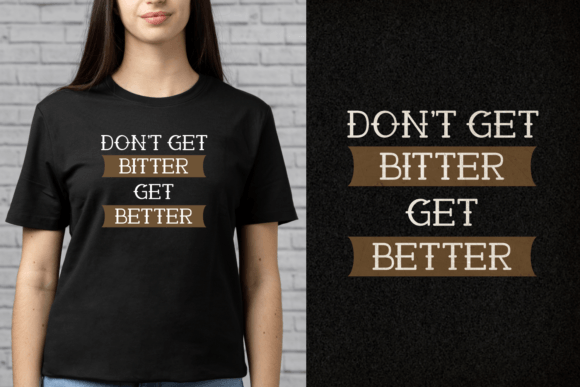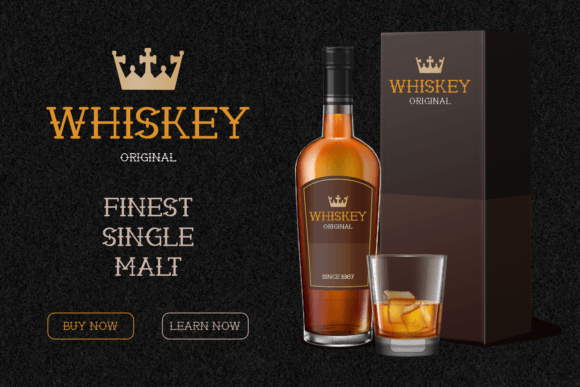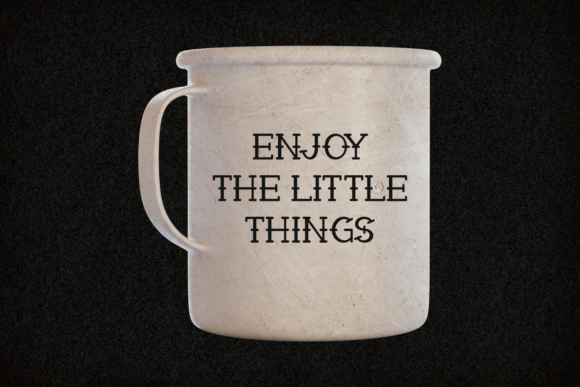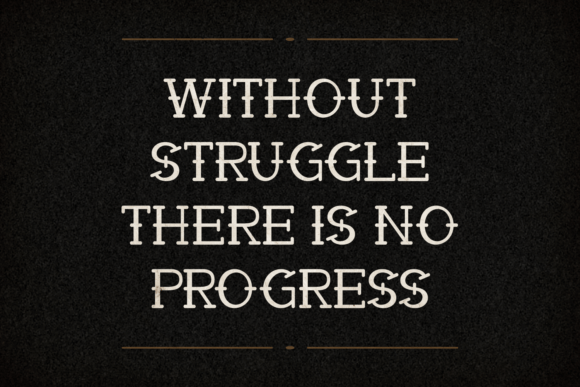
Introducing Brief Break Font: Elevate Your Designs with Elegance
In the realm of typography, a well-chosen font can make all the difference in bringing your creative vision to life. For designers and crafters seeking a touch of sophistication and versatility, the Brief Break Font is an exceptional choice. This minimalist blackletter font with serifs is not only elegant but also incredibly adaptable, making it perfect for a wide array of projects.
The Essence of Brief Break Font
Brief Break Font stands out with its unique blend of traditional blackletter elements and modern minimalist design. The inclusion of serifs adds a touch of classic elegance, while the minimalist approach ensures the font remains clean and uncluttered. This balance makes Brief Break an excellent choice for designers looking to infuse their work with a sense of heritage and sophistication.
One of the key advantages of Brief Break Font is its versatility. Whether you’re working on a stylish logo, a captivating poster, product packaging, an advertisement, a t-shirt design, or even a website, this font can adapt seamlessly. Its elegant and clear design ensures that your message is conveyed with style and professionalism, making it an ideal choice for various applications.
Applications of Brief Break Font
- Logos: Create a lasting impression with a logo that exudes elegance and sophistication. Brief Break Font’s unique character ensures your brand stands out.
- Posters: Whether it’s for an event, a product launch, or an awareness campaign, Brief Break Font can help you create visually stunning posters that capture attention.
- Product Packaging: Elevate your product’s presentation with packaging that looks premium and appealing. This font can add a touch of luxury to your packaging design.
- Advertisements: Make your ads more engaging and memorable with a font that combines elegance with readability.
- T-Shirts: Design unique and stylish apparel that stands out. Brief Break Font can add a touch of class to your t-shirt designs.
- Websites: Enhance your website’s typography with a font that is both elegant and easy to read. Brief Break Font can contribute to a more refined and professional online presence.
Why Choose Brief Break Font?
Choosing Brief Break Font for your projects comes with several benefits:
- Elegance: It adds a touch of sophistication to any design.
- Versatility: Suitable for a wide range of projects, from print to digital.
- Readability: Despite its elegant design, it remains clear and easy to read.
- Uniqueness: Stands out from more commonly used fonts, giving your designs a distinctive look.
Tips for Using Brief Break Font
To get the most out of Brief Break Font, consider the following tips:
- Pair it Wisely: Combine Brief Break Font with complementary fonts to create visual interest. A sans-serif font can provide a nice contrast.
- Play with Sizes: Utilize different font sizes to create a hierarchy of information, making your designs more dynamic.
- Experiment with Colors: While black and white are classic choices, don’t be afraid to experiment with colors that match your brand or project’s theme.
Brief Break Font is a powerful tool for designers and crafters looking to add a touch of elegance and sophistication to their work. Its minimalist blackletter design with serifs offers the perfect blend of tradition and modernity. With its versatility and ease of use, Brief Break Font can help you bring your creative ideas to life in a stylish and professional manner. Whether you’re working on a logo, poster, packaging, or digital project, this font is sure to make a lasting impression.